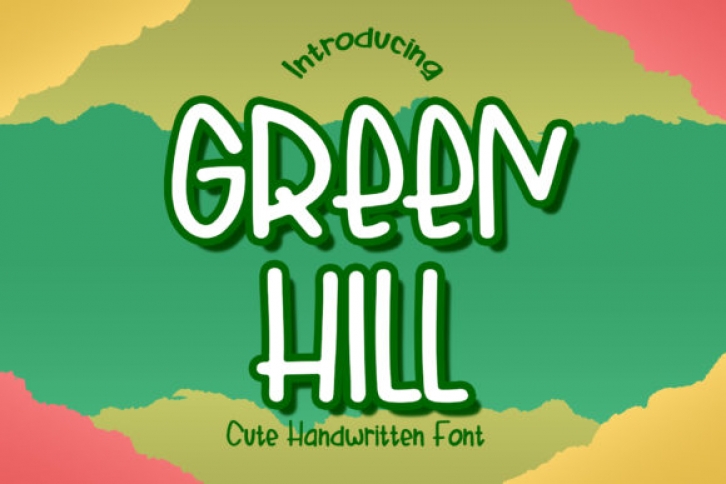
Green Hill is a cute and quirky handwritten font. Casual and natural, this font will fit a variety of design projects, so add it confidently and you will love the result.